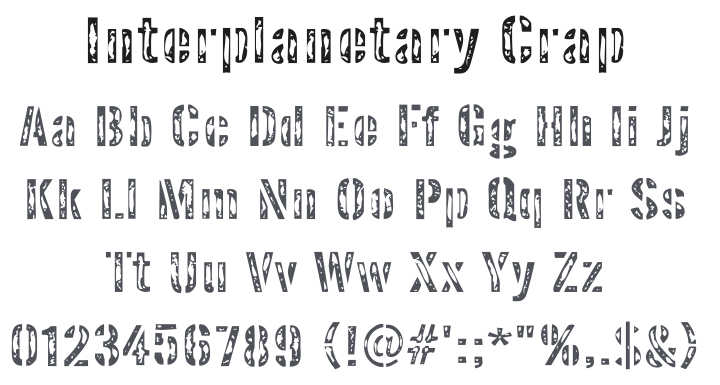
Interplanetary Crap Font
About Interplanetary Crap
Interplanetary Crap is a flaky, crunchy stencil typeface with a heavily distressed, rugged texture — bold letterforms that look spray-painted through a worn-out template, coated in genuine orbital grime. Its compact, condensed stance gives it a gritty industrial authority. Perfect for military-themed designs, sci-fi posters, post-apocalyptic game titles, urban street graphics, and anything needing raw, battle-worn attitude.